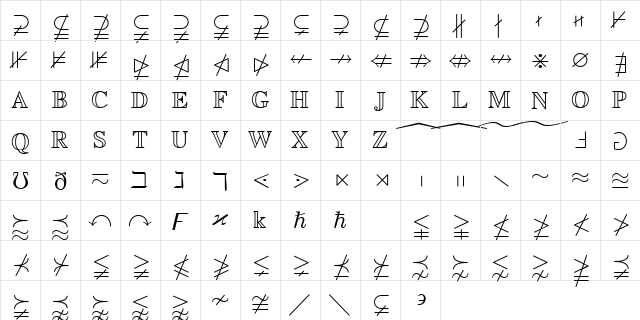
msbm10 Regular
Design Context for msbm10 Typeface
msbm10 takes a measured approach to typography — its balanced proportions and neutral character make it a reliable workhorse for both digital and print work.